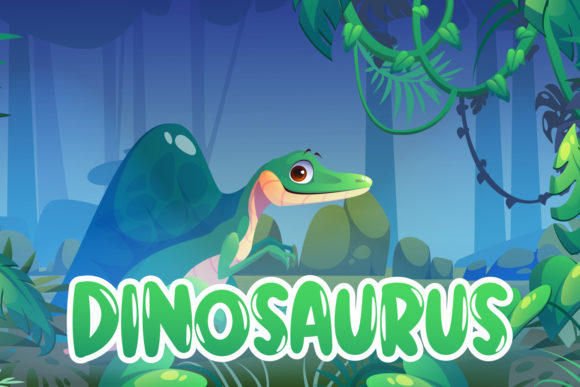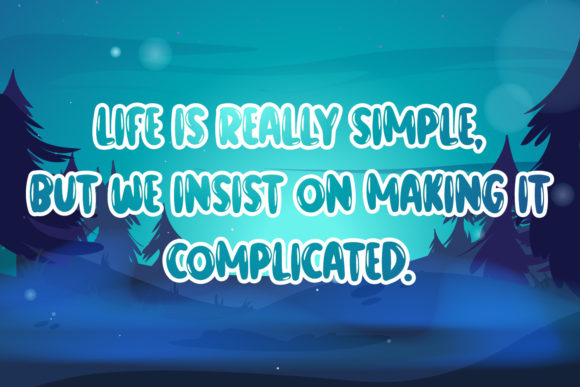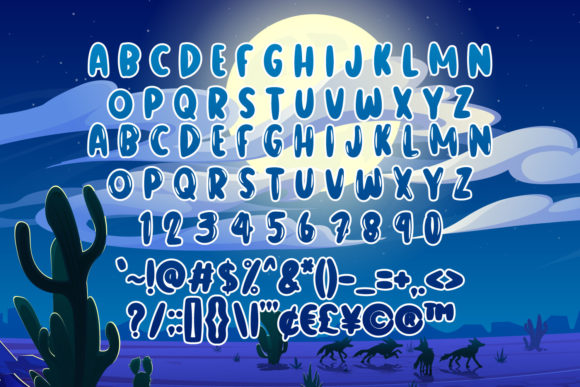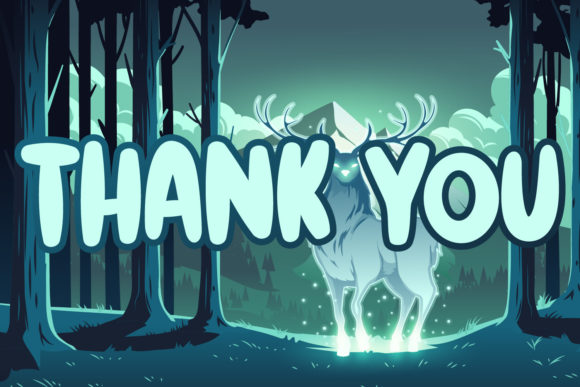
Introduction to Cartoon Animals Font
Cartoon Animals is a fresh and cute display font.
This font can use for your designs with cheerfulness Use it on covers, posters, spring designs, marketing materials, or anything that needs to pop.
Key Features of Cartoon Animals Font
Why Choose Cartoon Animals Font?